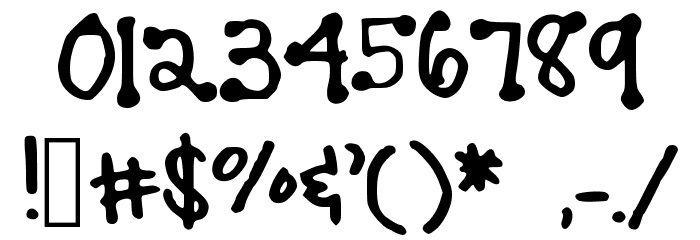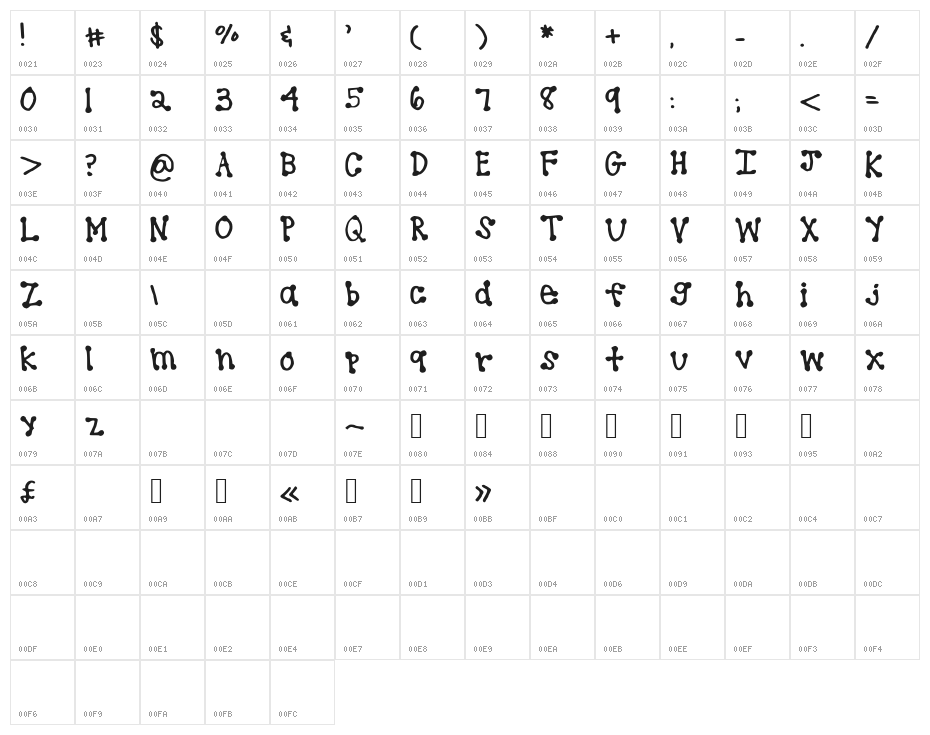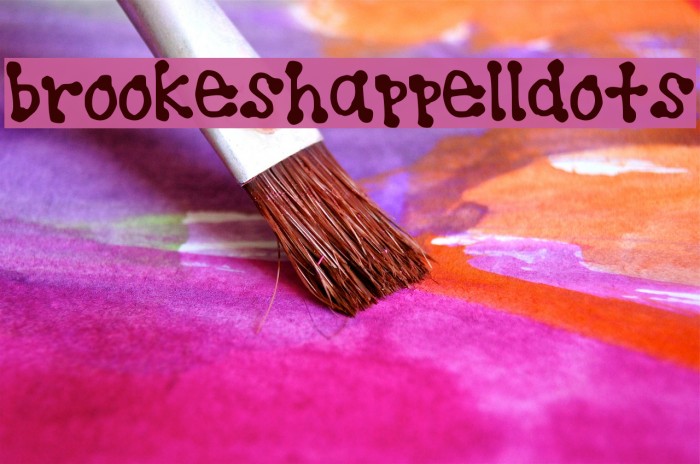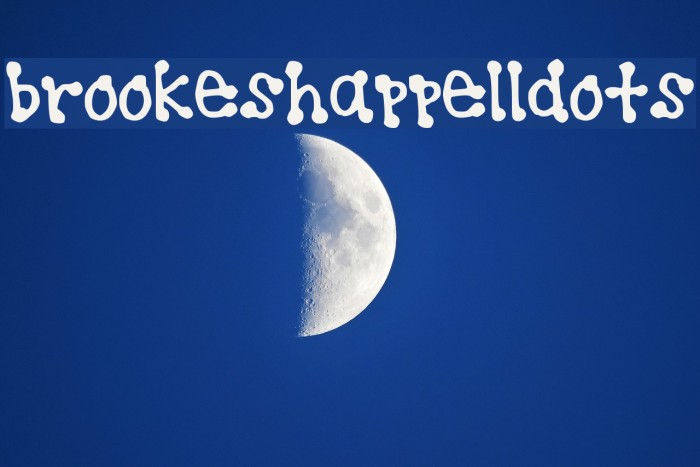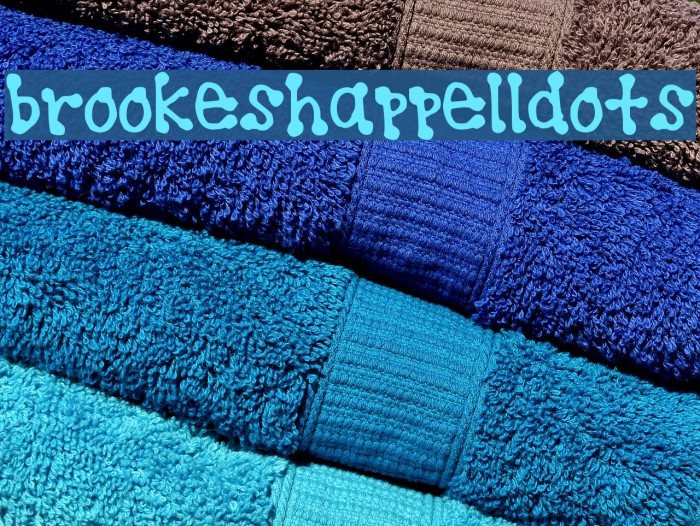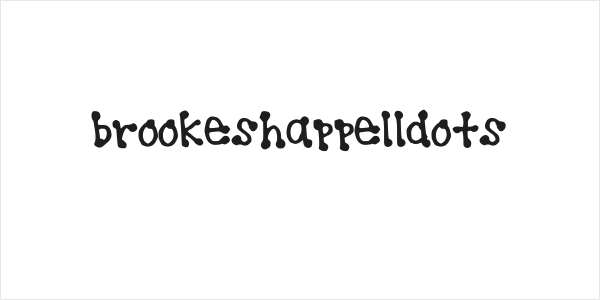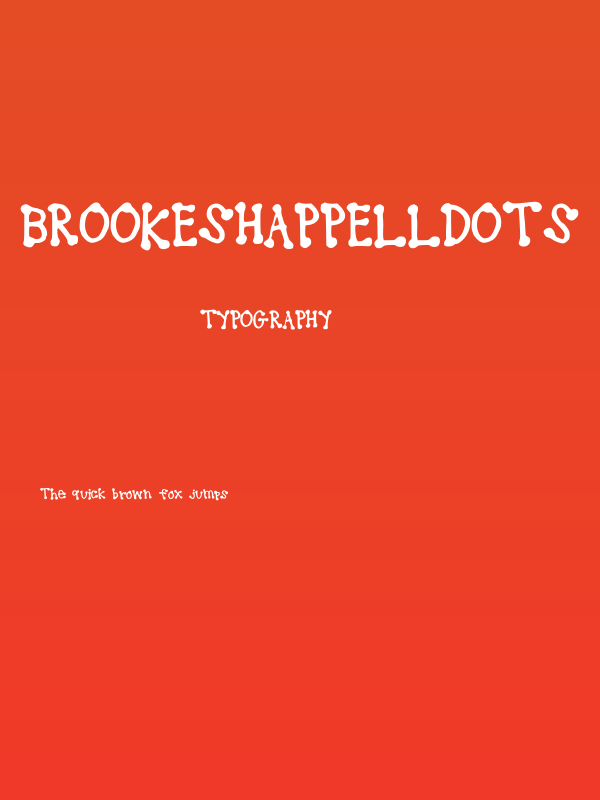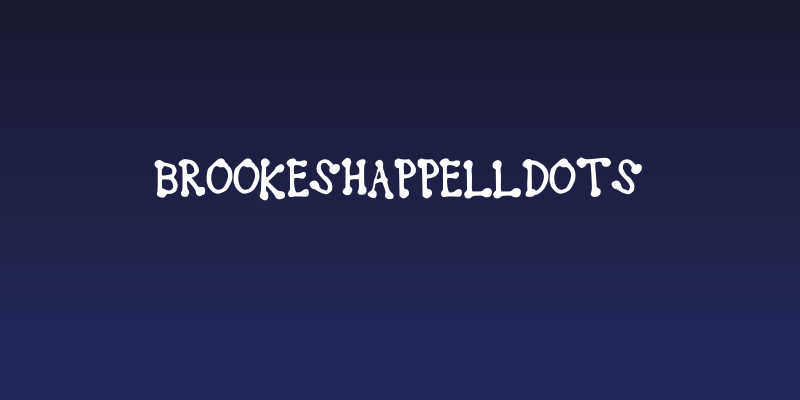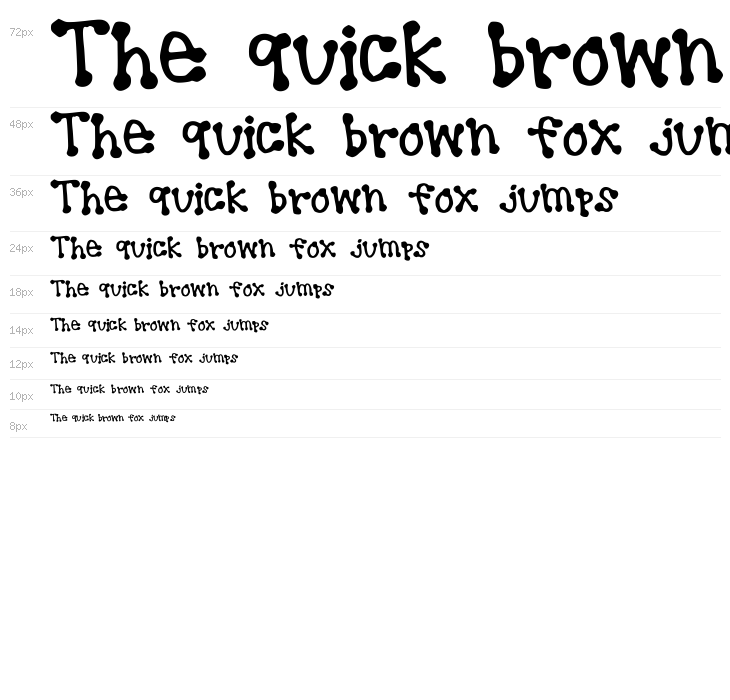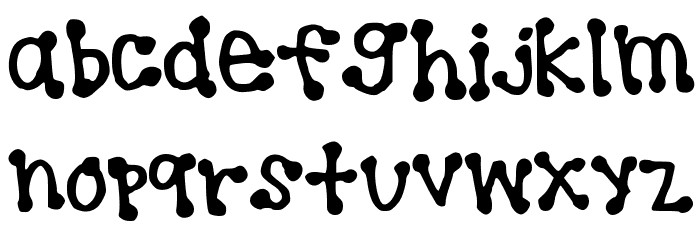
brookeshappelldots Font
brookeshappelldots Description
This playful and whimsical font features a unique dotted style that adds a sense of fun and creativity to any design. The characters are bold and rounded, with a hand-drawn appearance that gives them a casual and approachable feel. The uppercase and lowercase letters maintain a consistent style, with the dots adding a decorative touch that enhances the overall aesthetic. Numbers and special characters are also included, following the same dotted theme, making this font versatile for various uses. Its distinctive look makes it ideal for projects that require a touch of personality and flair.
| Overall Style | Whimsical, Playful |